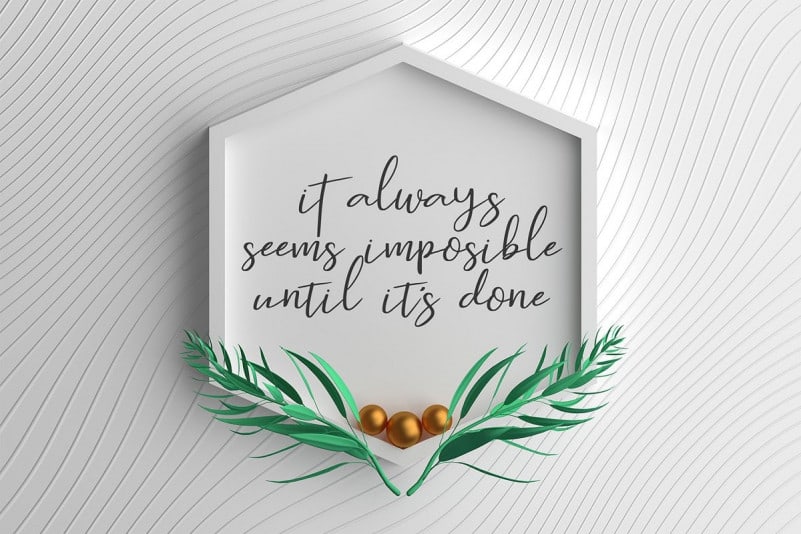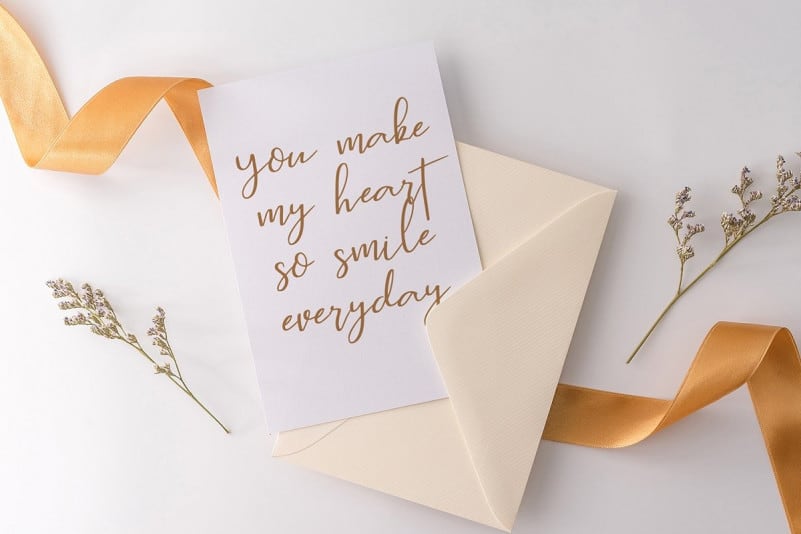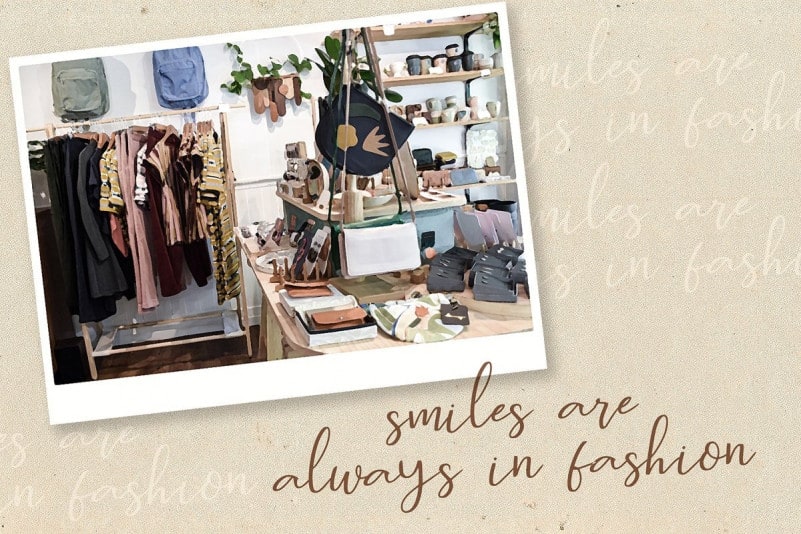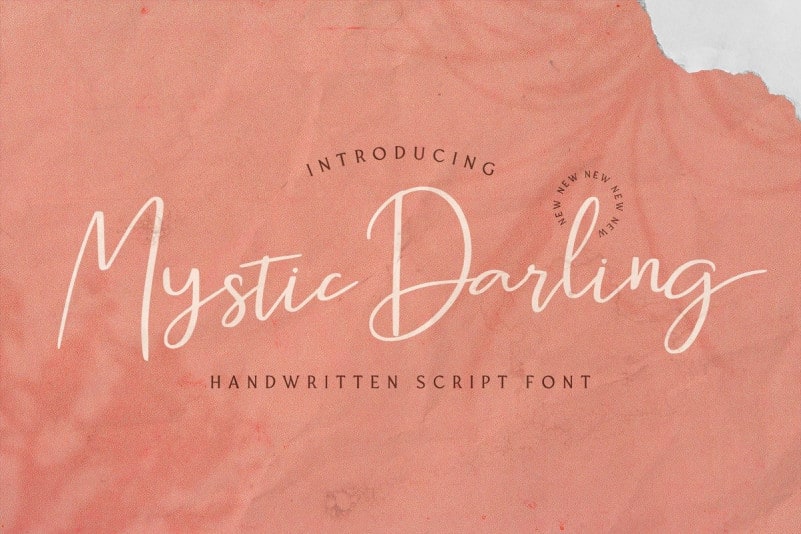
Mystic Darling Handwritten Font is a Signature typeface with hand-written Style. The Mystic Darling typeface made with digital brush pen strokes that making this font look authentic. This font is perfect for fashion brand, wedding invitation, business card, logo brand, signature, and then calligraphy.
Mystic Darling Handwritten Font has an extensive lingual support, covering European and Asian Latin scripts. The font contains all characters you’ll ever need, including all punctuation and numbers.